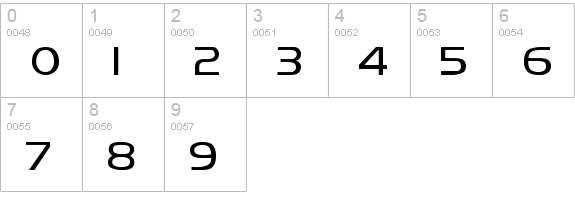
Koshgarian-Ligh font is a modern and sleek typeface that effortlessly blends elegance with simplicity. Its clean lines and rounded edges make it perfect for a wide range of design projects, from branding to editorial layouts. The Koshgarian-Ligh font exudes a sense of sophistication and professionalism while maintaining a touch of friendliness. What's even better is that this stunning font is available for free! You can download the Koshgarian-Ligh font at FontsMarket.com without any cost, making it a valuable addition to your font collection. Whether you're a graphic designer, a creative professional, or simply someone who appreciates beautiful typography, the Koshgarian-Ligh font is sure to impress with its versatility and timeless appeal. Elevate your designs today with this exceptional font that combines style and accessibility in one package.